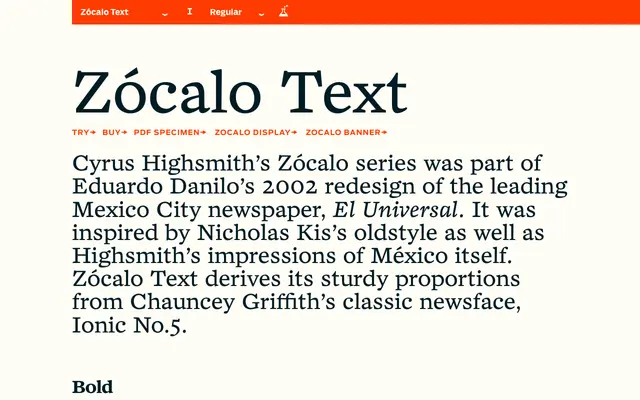
Zócalo Text
A sturdy text serif by Cyrus Highsmith, rooted in Ionic newsface tradition and originally commissioned for the 2002 redesign of Mexico City's El Universal.
Designed in 2006 as the text-setting member of the Zócalo series, this face derives its compact, high-legibility proportions from Chauncey Griffith's Ionic No.5 while drawing character from Nicholas Kis's oldstyle and Highsmith's own impressions of México. The family runs to four styles — Regular, Italic, Bold and Bold Italic — with small caps, oldstyle figures, tabular figures and standard ligatures included. Part of a series that also extends to display and banner optical sizes.
Zócalo Text draws explicitly from Chauncey Griffith's Ionic No.5, a classic newspaper-optimised serif, giving it the sturdy low-contrast proportions characteristic of ionic newsfaces. The oldstyle influences of Nicholas Kis also inform its character.